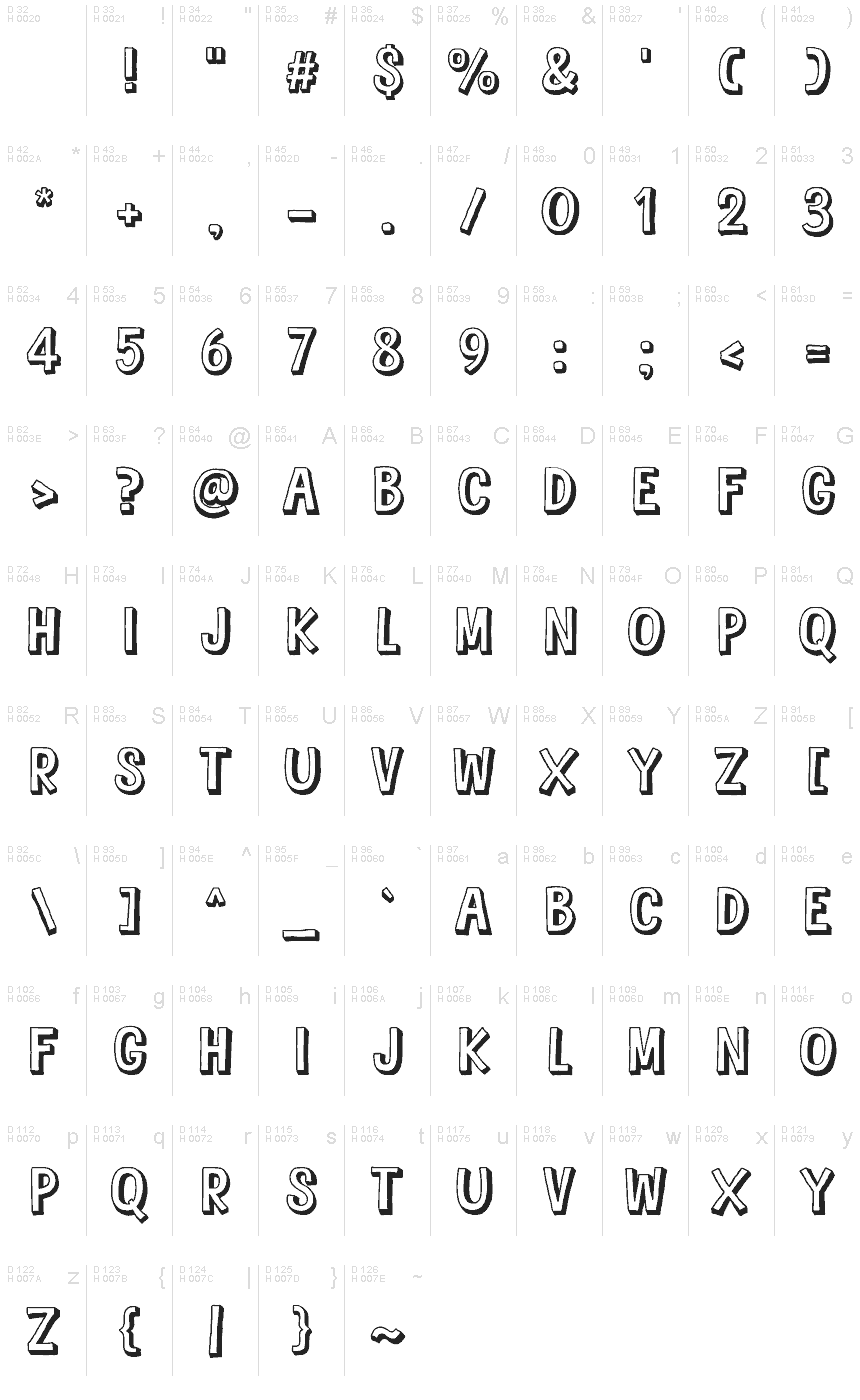
Whatdo font is a cartoon-inspired display font made from scratch by Khurasan. The rough texture of the typeface gives it a certain handcrafted feel and vintage aesthetic. The bold dimensionality mixes well with the artistic outline to deliver striking letters full of character and splendor each carrying the identity of its designer.
Although Whatdo has no limitations, its aesthetic makes it perfect for applied arts like posters, quotes, movie titles, video game interfaces, and headlines (print & digital). It can also be added to books covers/front pages, product packaging/labels/logos/fonts/names/ingredients/nutritional value tables. Use this free industrial font for DIY art projects or special last-minute editing jobs!
Whatdo